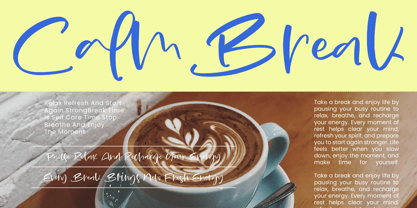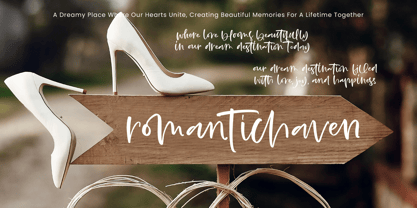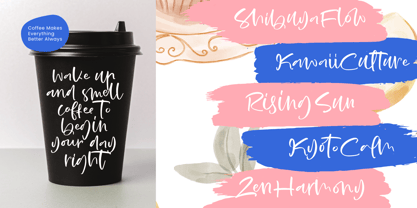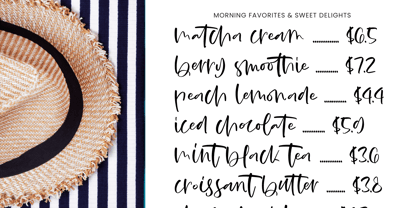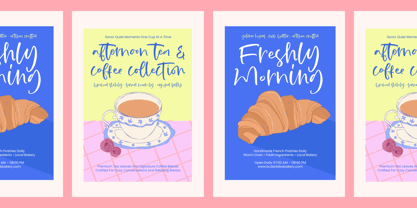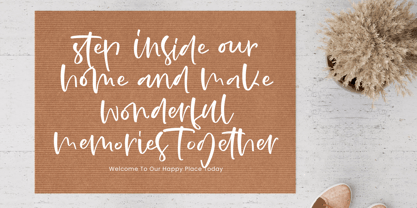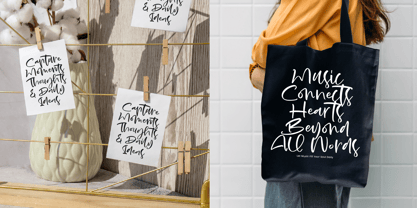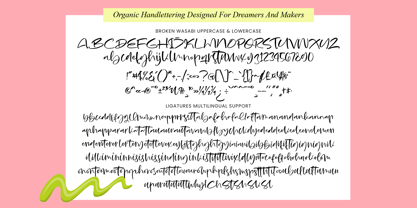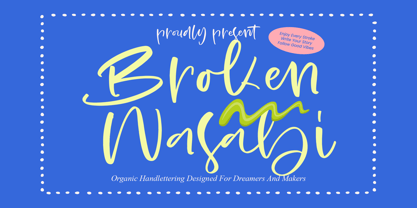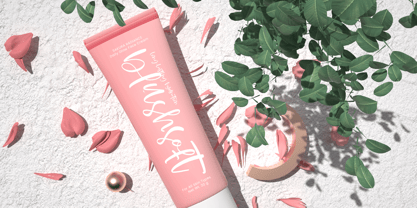
Broken Wasabi
por Stylishtype Studio
La familia tipográfica Broken Wasabi fue diseñada por Heru Utama Putra y publicada por Stylishtype Studio. Broken Wasabi contiene 2 estilos y opciones de paquete familiar. Más información sobre esta familia
Experience the raw beauty of authentic craftsmanship with Broken Wasabi - Organic Handlettering, a font designed to bring an organic script feel to every project. This typeface captures the fluid, spontaneous essence of hand-drawn ink, providing an artistic flair that resonates with "dreamers and makers." By balancing human touch with professional polish, Broken Wasabi - Organic Handlettering ensures your designs stand out with a unique personality and effortless charm.